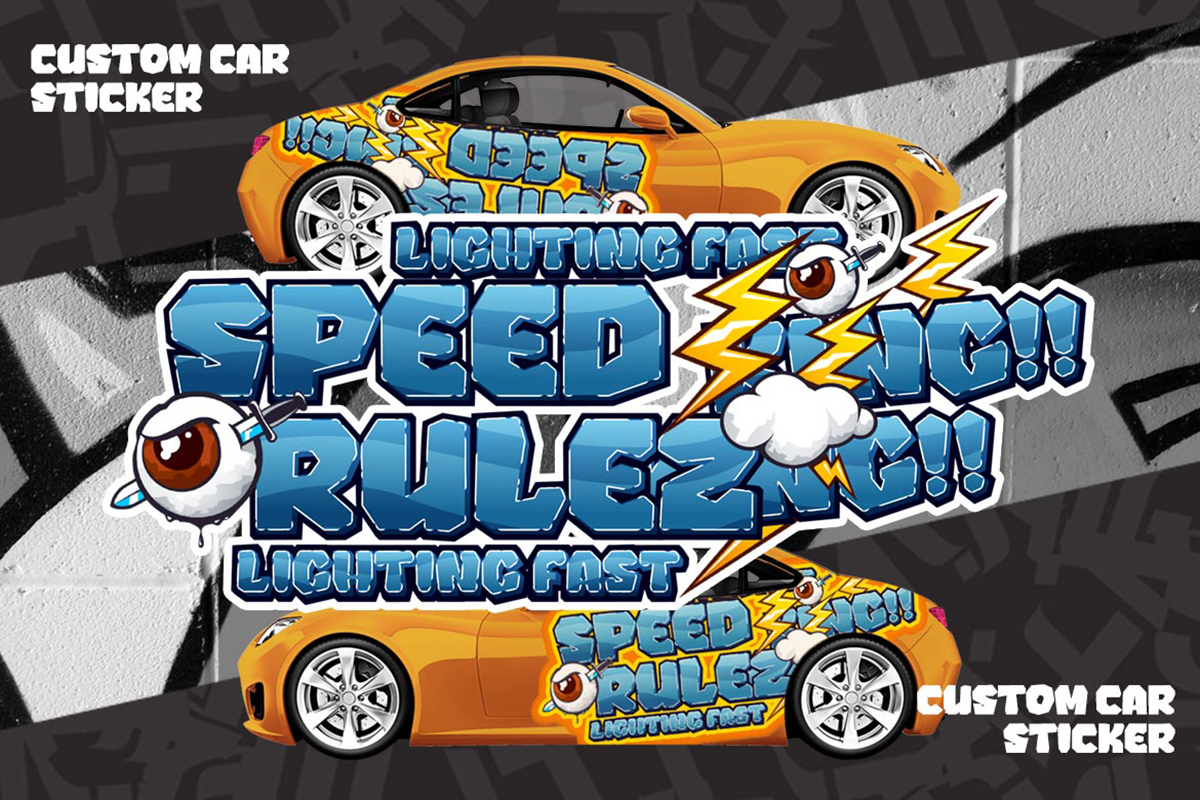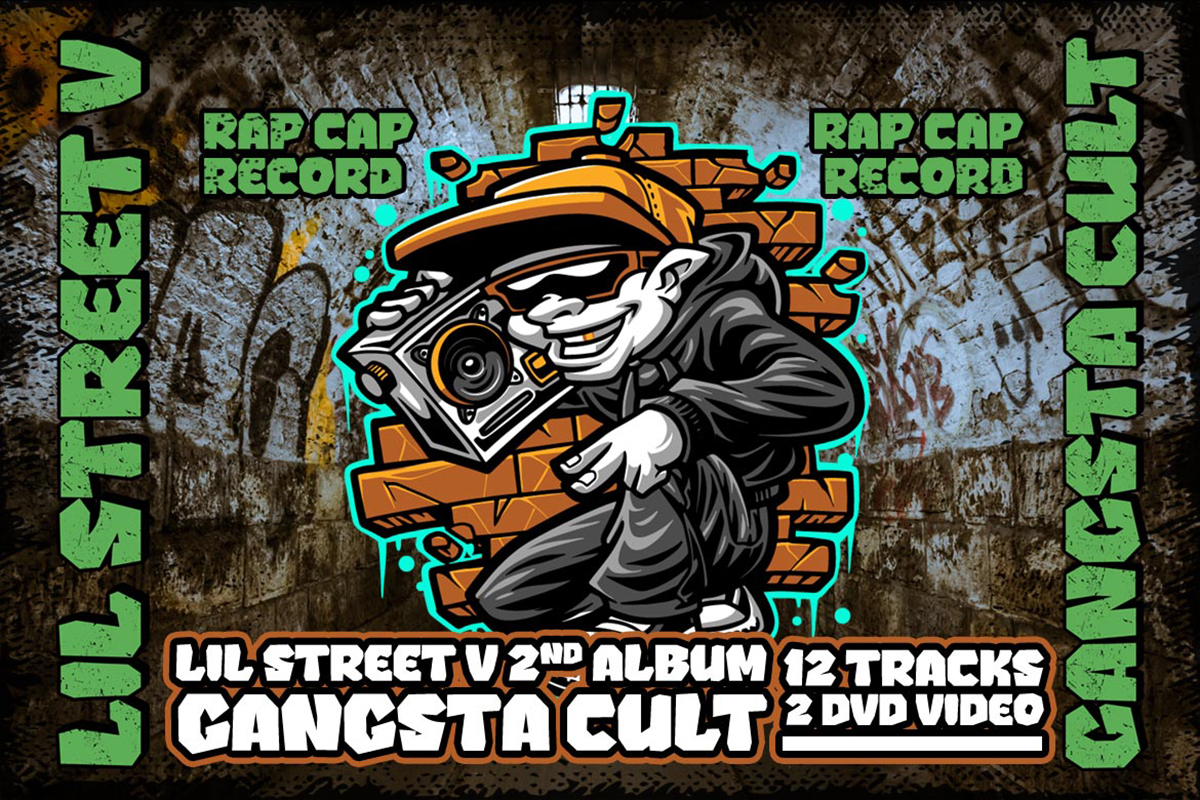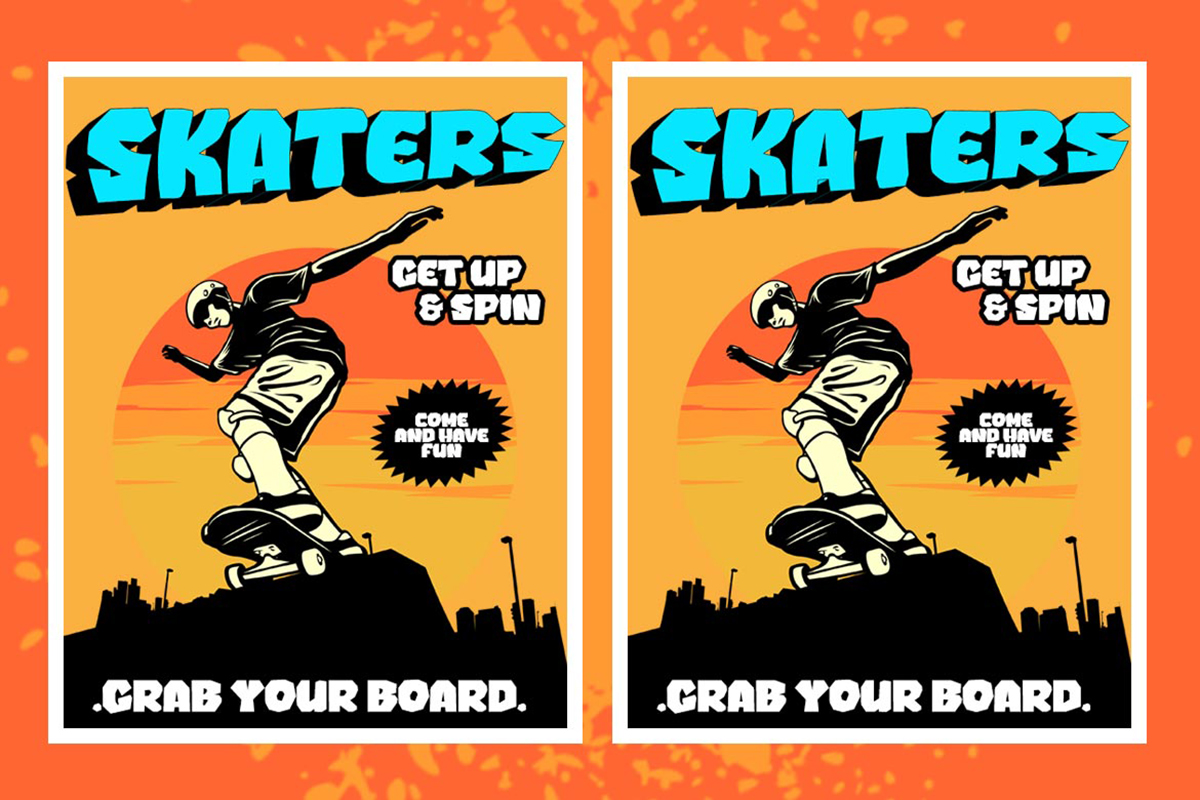
Bonkard Free Font
Meet Bonkard Free Font, a meticulously crafted font designed to seamlessly meet all your project needs. Elevate your project to new heights of flawlessness by utilizing this font; its appeal and charm are sure to captivate everyone. Ideal for product logos, poster titles, headlines, packaging, film titles, logotypes, elegant writing, and contemporary graffiti designs, Bonkard is a versatile choice for various creative endeavors. Implement this typeface promptly to lend a unique and remarkable touch to your projects, making them stand out in the most captivating way. This free typeface was designed by a talentedΒ Twin Letter. If you like it don’t forget to check out the full version.